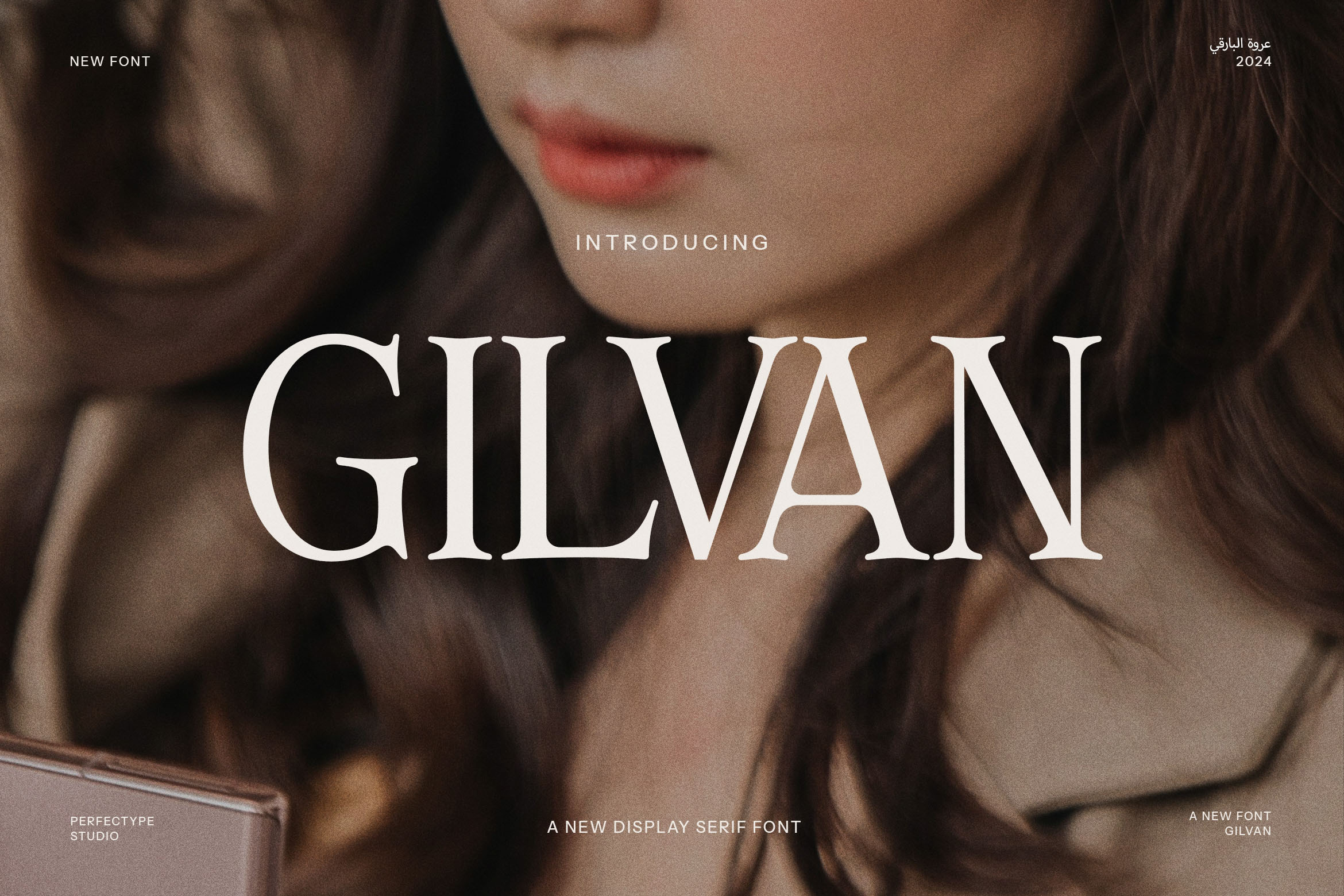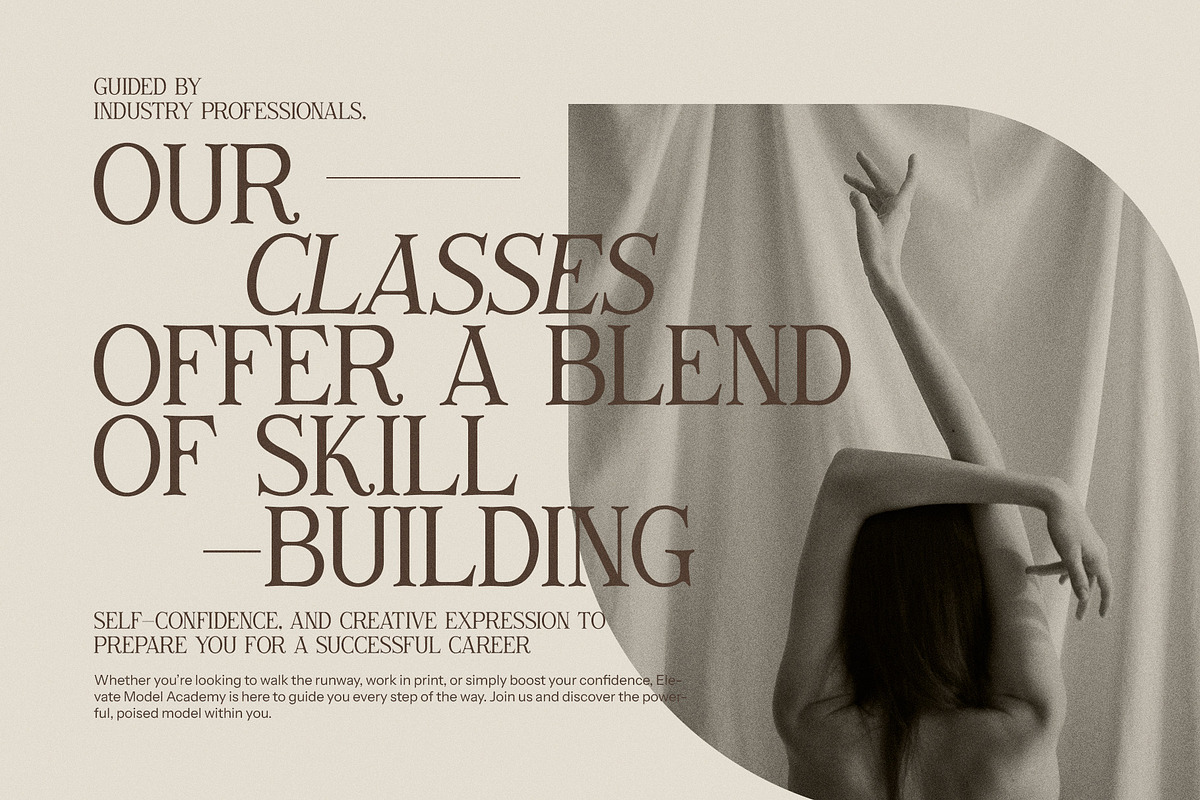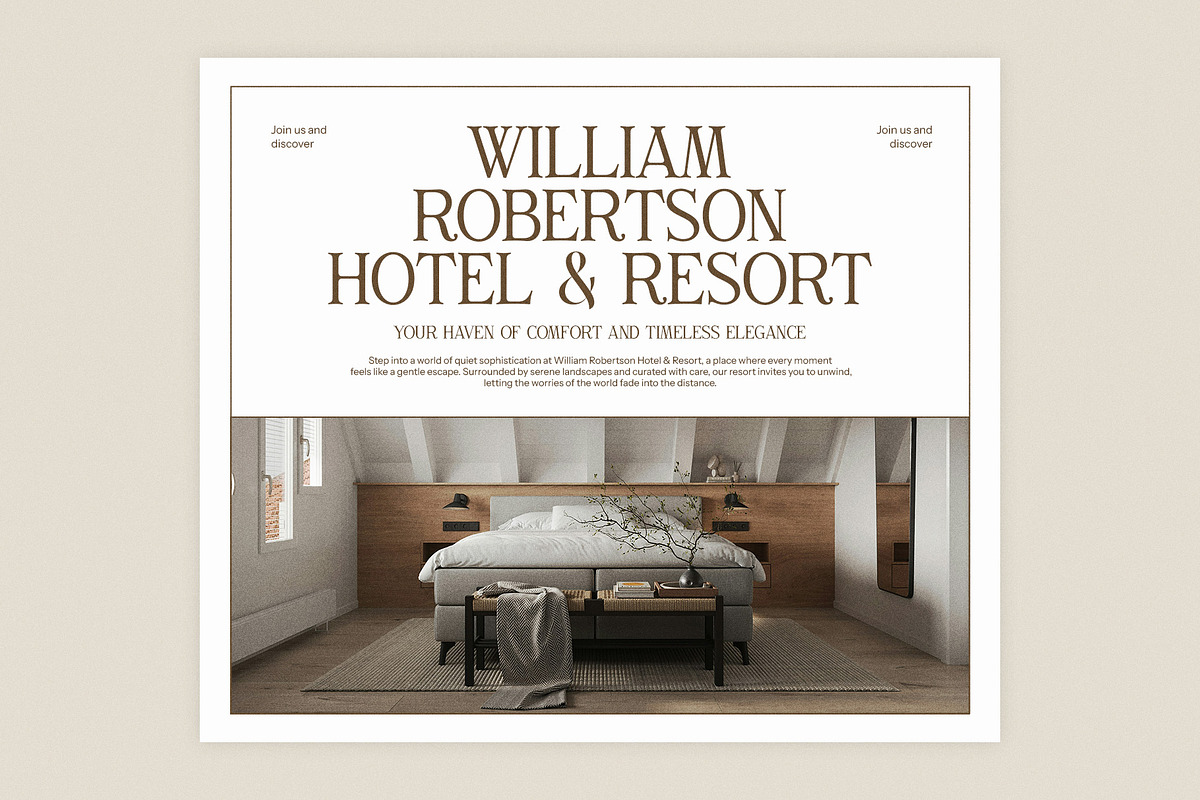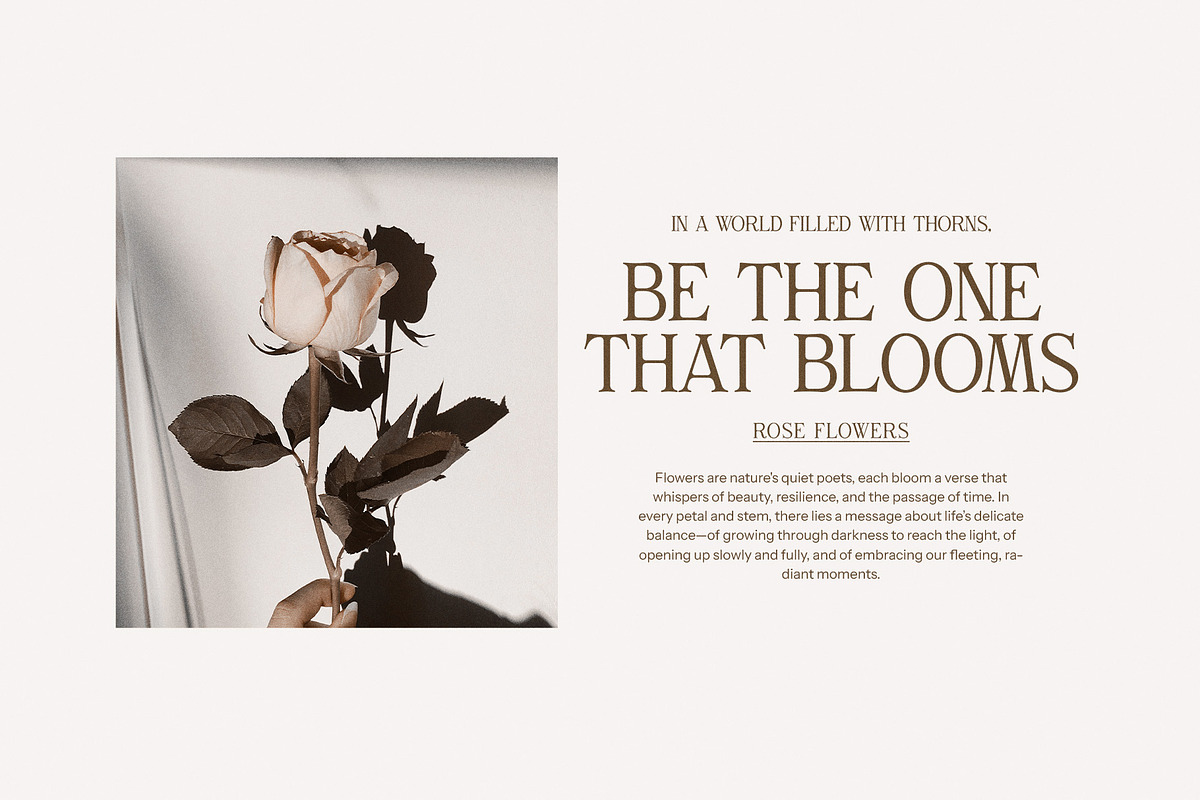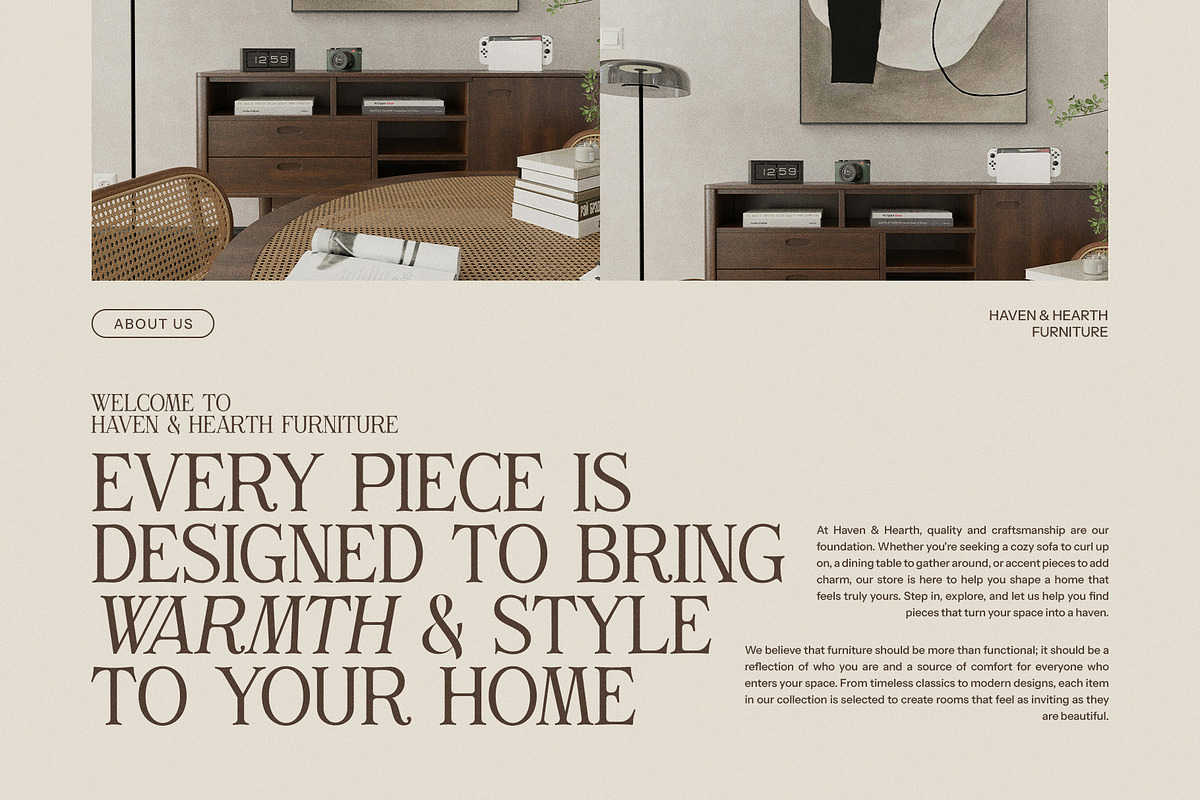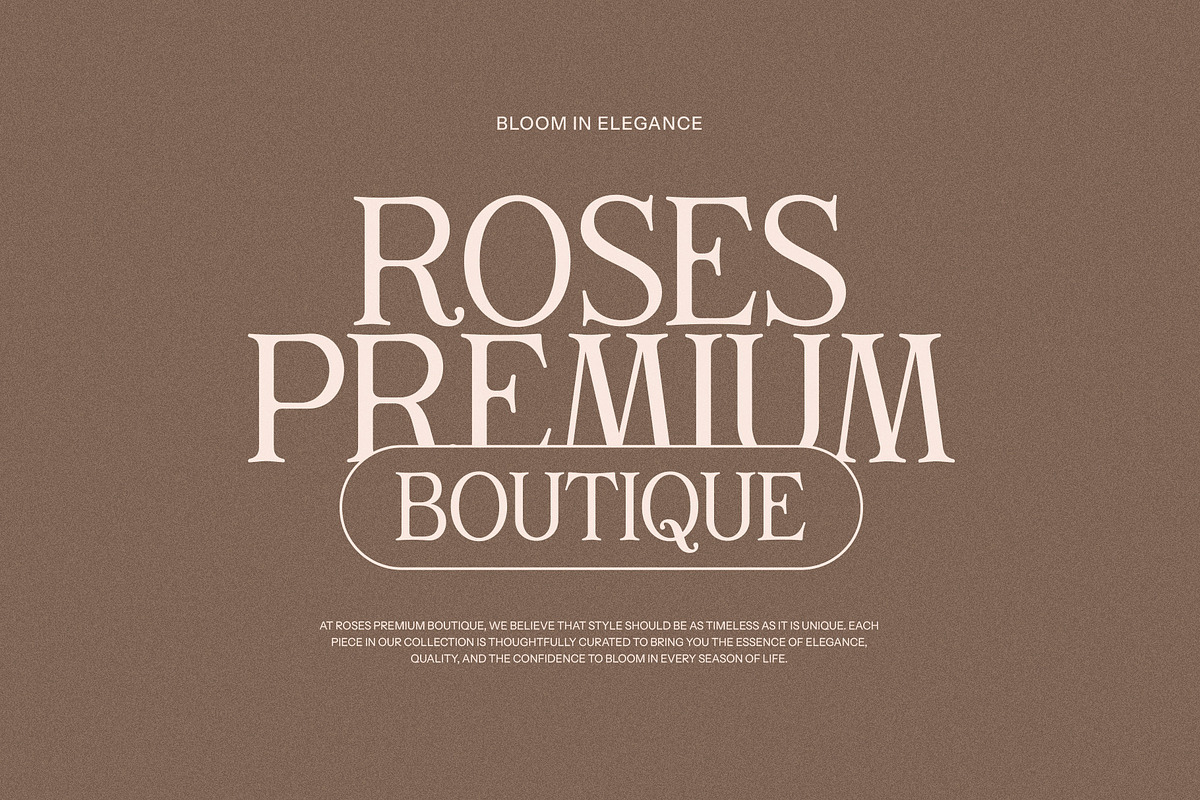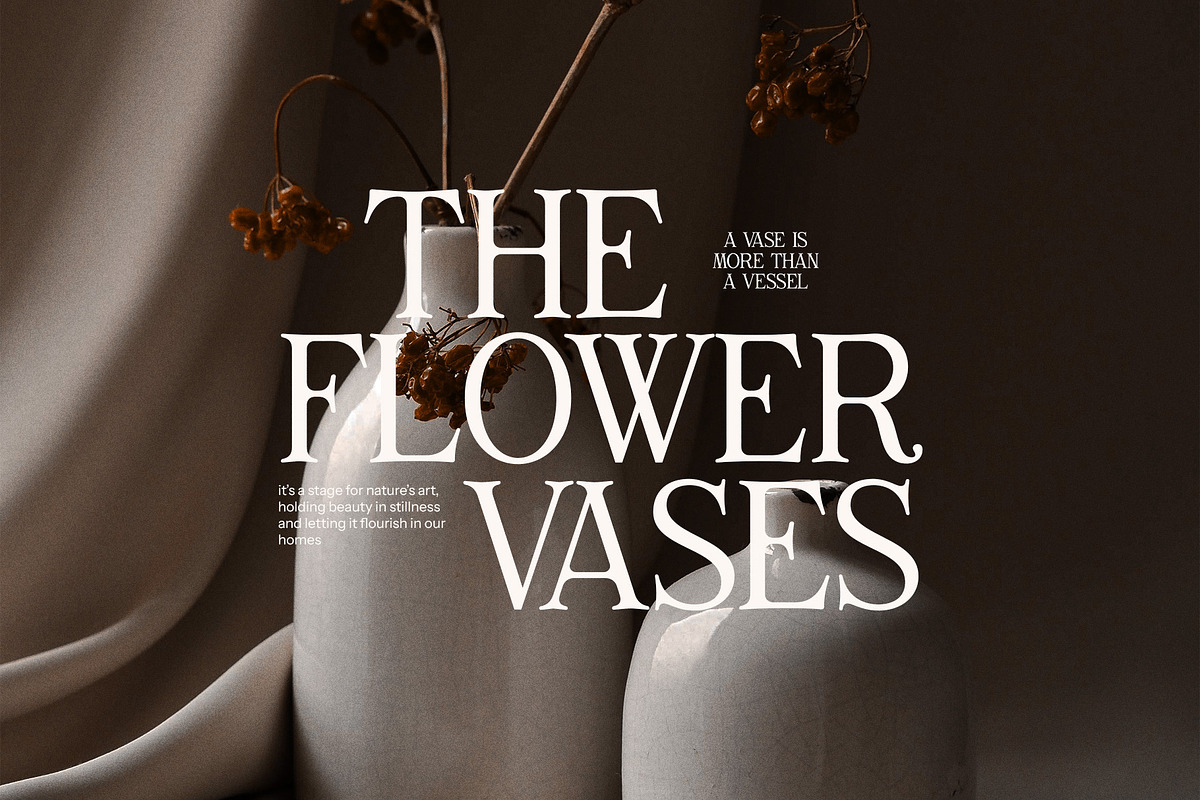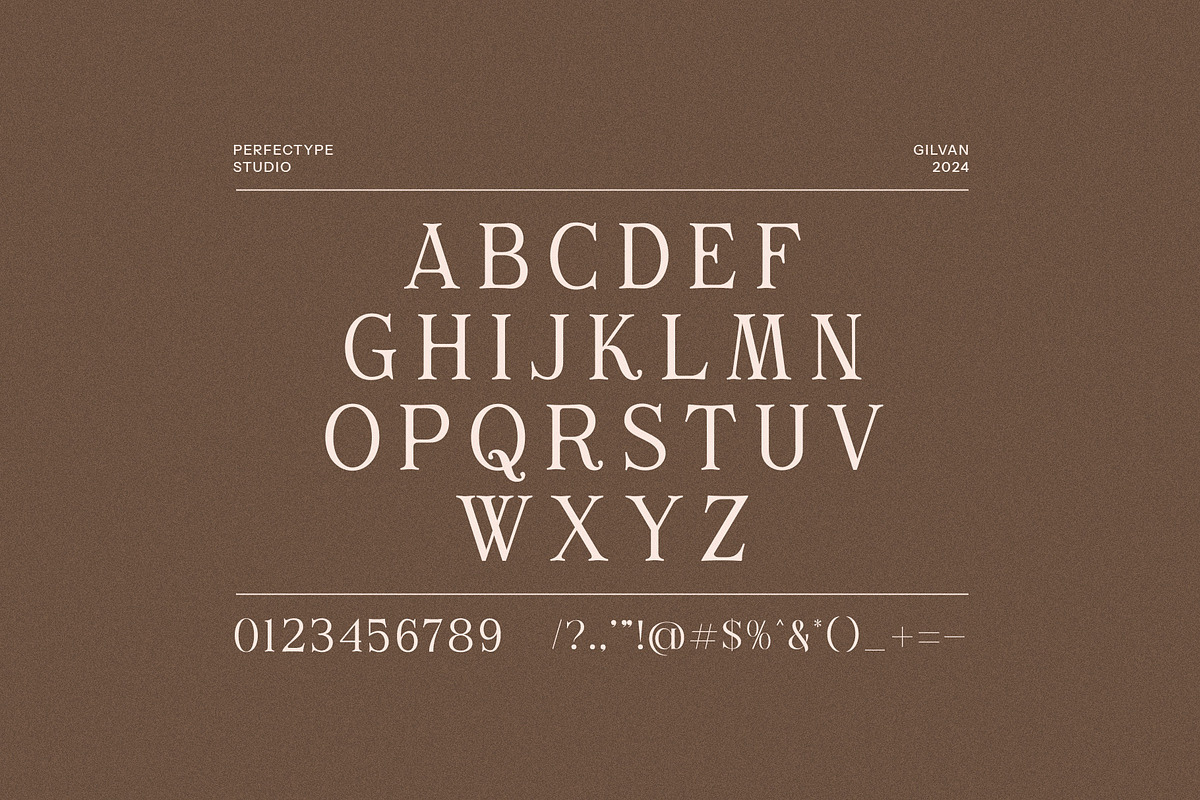
Gilvan Modern Serif Font
Gilvan Modern Serif Font is a beautifully crafted typeface that combines the best of modern elegance and vintage charm. With its distinct, stylish serifs and refined curves, Gilvan is designed to stand out in a variety of applications, from logo design to web content. This font is perfect for those looking to add sophistication and personality to their branding, marketing, and creative projects.
Ideal for branding, logos, magazine layouts, and advertising, Gilvan Modern Serif offers versatility in both print and digital design. Its timeless appeal makes it suitable for luxury brands, boutiques, restaurants, and even product packaging. Whether you're working on a high-end fashion brand, a food & beverage label, or a modern website, this serif font elevates the visual experience with its unique aesthetic.
The font’s carefully balanced proportions and elegant letterforms ensure legibility across various mediums, making it an excellent choice for headlines, titles, social media graphics, and more. With its distinctive character, Gilvan Modern Serif also works beautifully in long-form text, providing a harmonious reading experience that doesn't sacrifice style for function.
Boost your creative projects with Gilvan Modern Serif Font, a perfect blend of modern sophistication and classic vintage appeal. Whether you need to create a bold logo, a standout advertisement, or a sophisticated magazine spread, Gilvan offers endless possibilities for both designers and brands seeking to make a memorable impression.